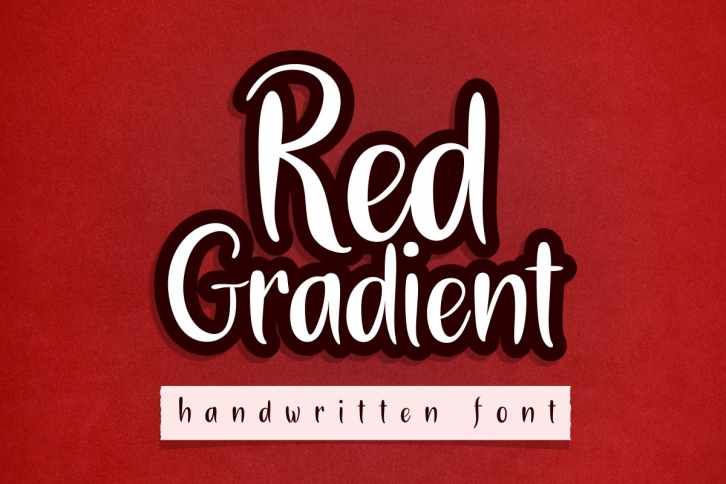
Red Gradient is a trendy and unique font with an authentic style. It was designed by deedeetype and it's a great choice for creative people who need such a font. It was released on July 31, 2020 and the file size is 21.2 MB. Red Gradient will add an organic vibe to any design idea!